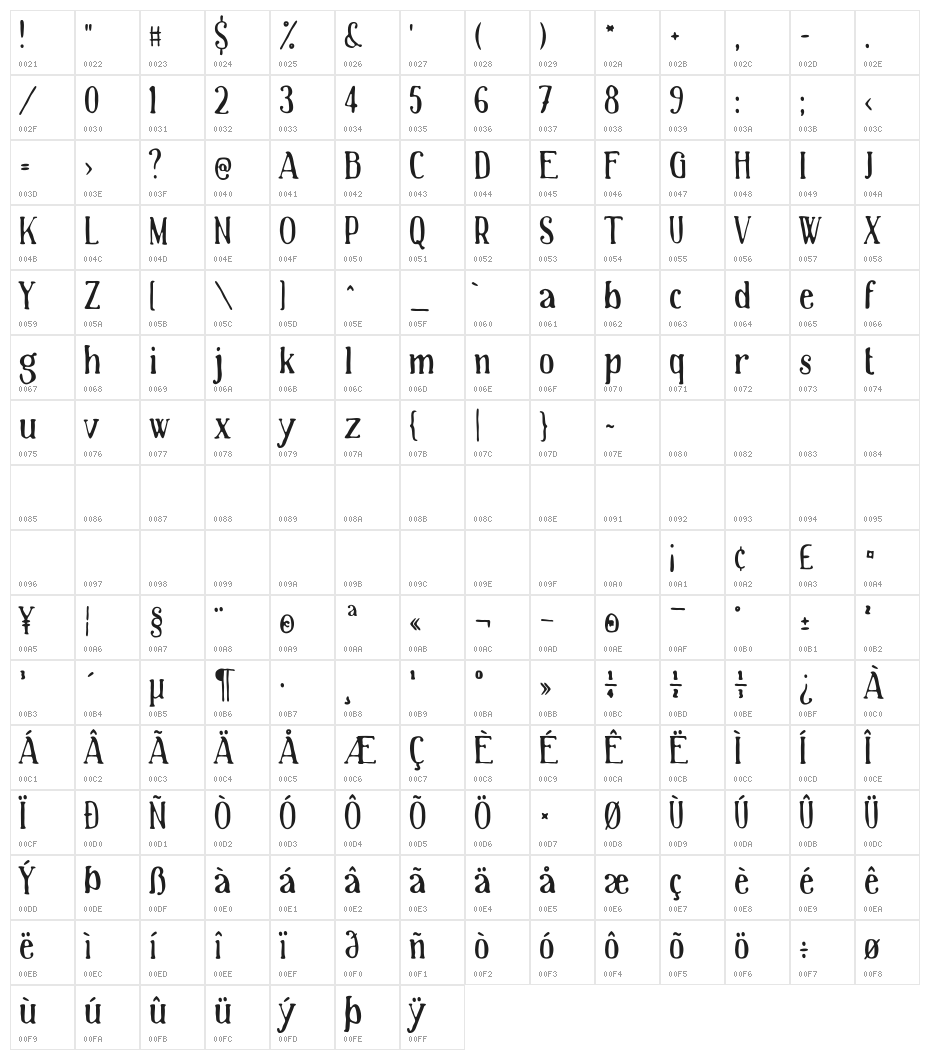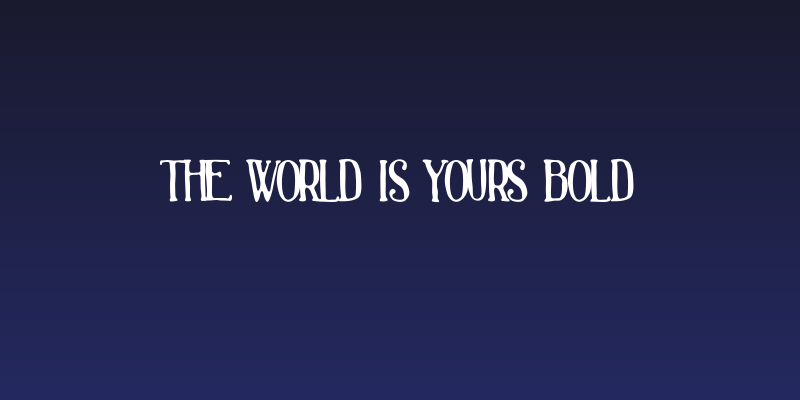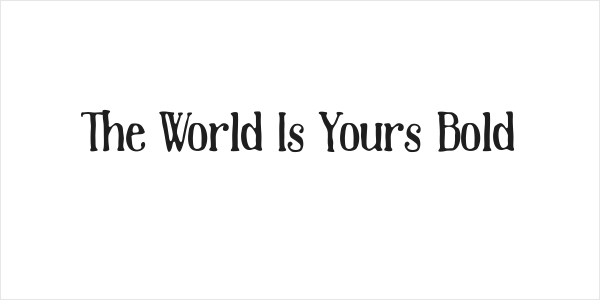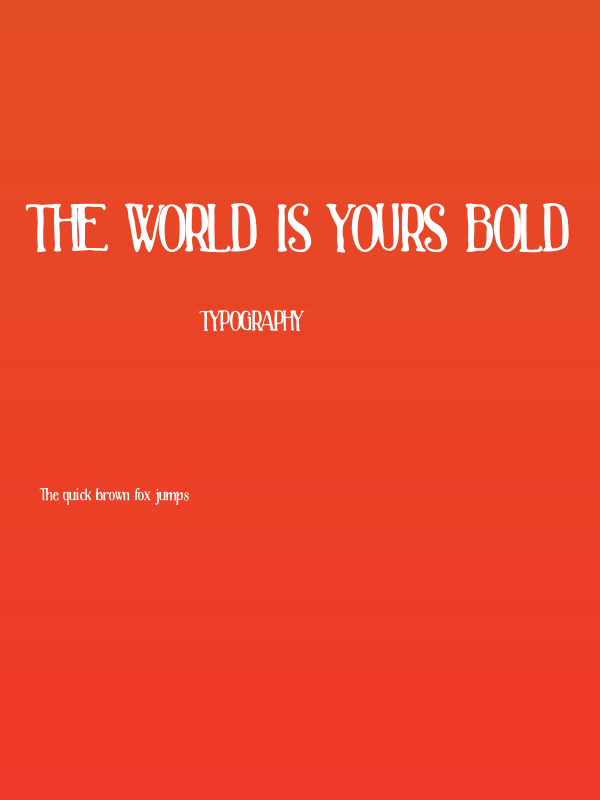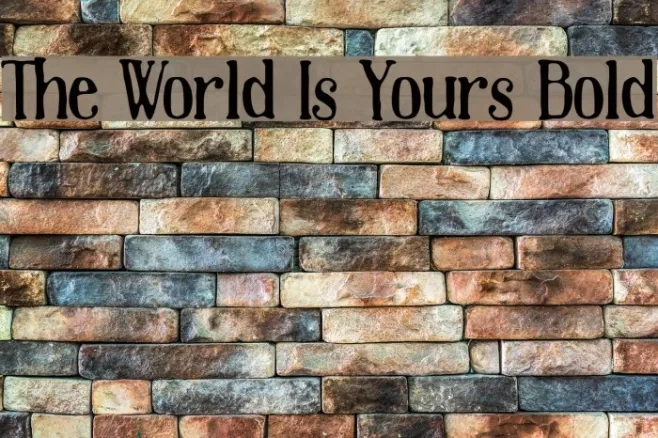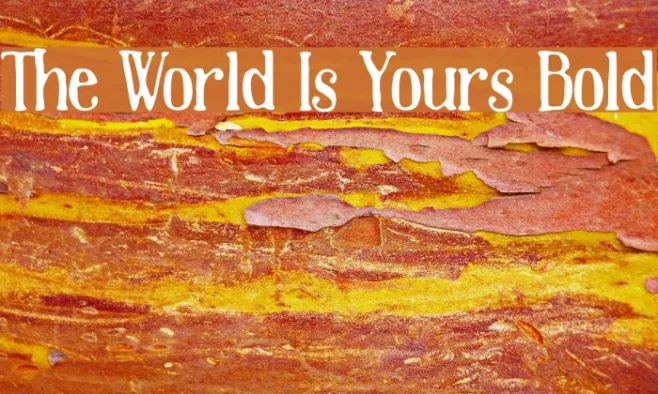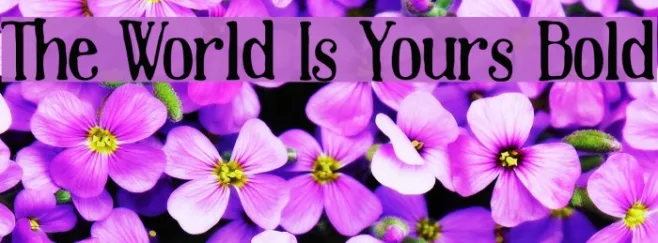
The World Is Yours Bold Font
The World Is Yours Bold Description
This font features a bold and playful design with a hand-drawn aesthetic. The letters are characterized by their thick strokes and slightly irregular shapes, giving them a whimsical and artistic feel. The uppercase and lowercase letters maintain a consistent style, with rounded edges and a slight slant that adds to the casual appearance. The numerals and special characters follow the same design principles, ensuring a cohesive look throughout. This font's unique style makes it stand out, perfect for projects that require a touch of creativity and fun.
| Proposed Projects | Ideal for children's books, greeting cards, posters, and creative branding projects. |